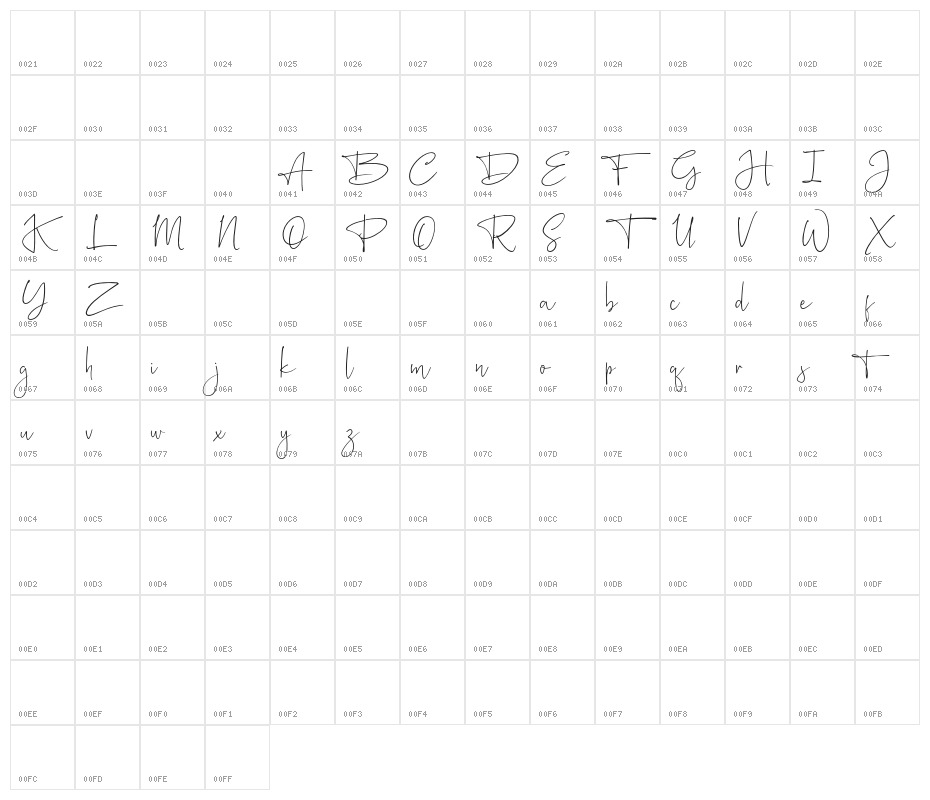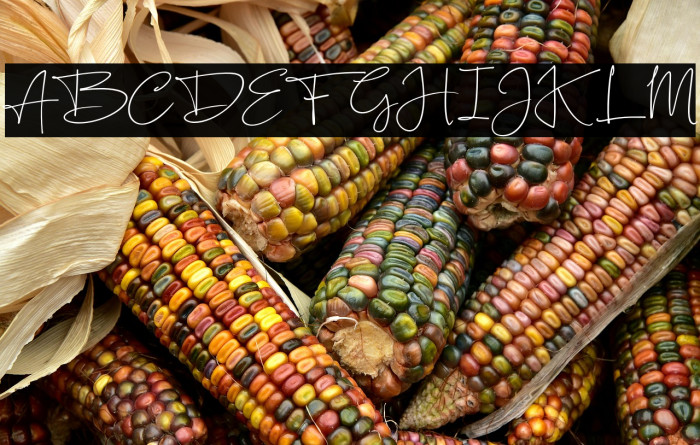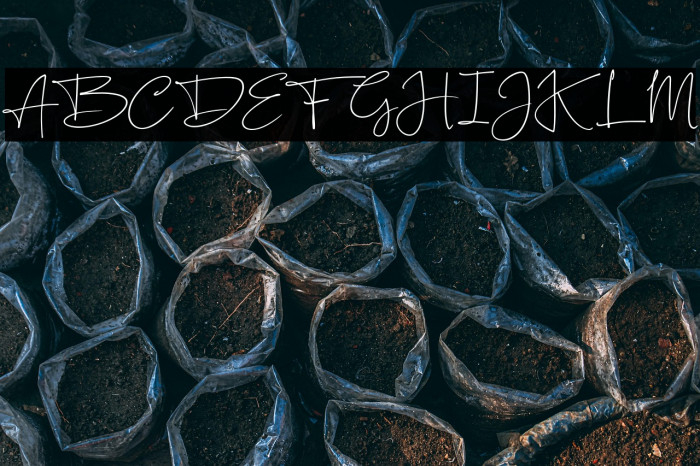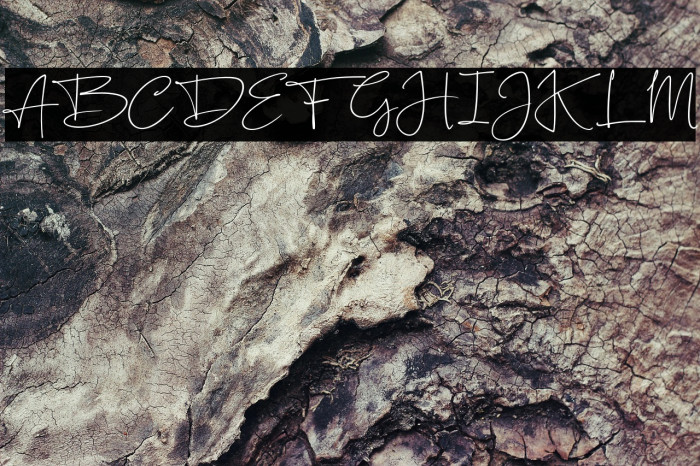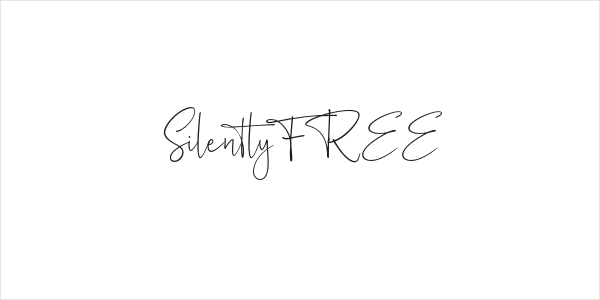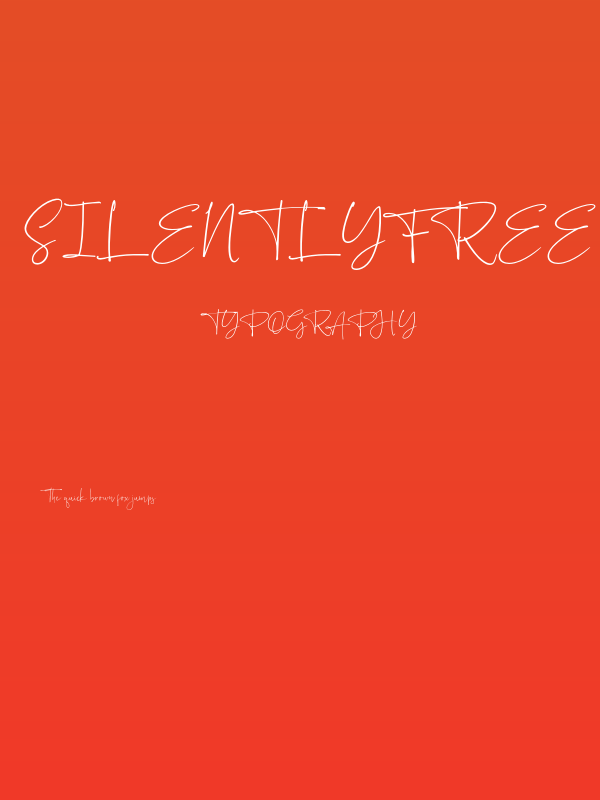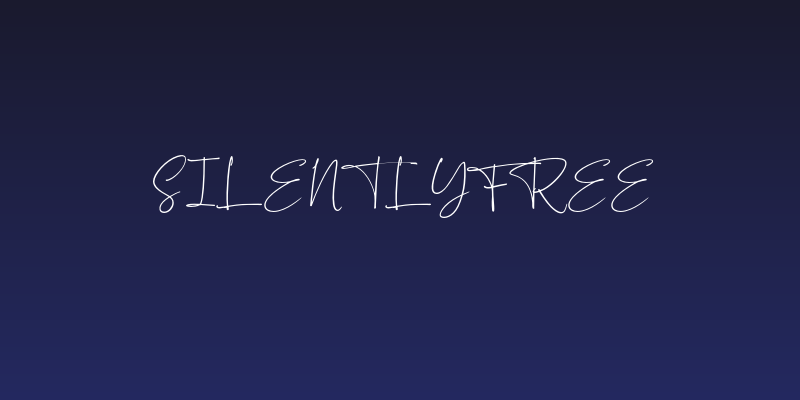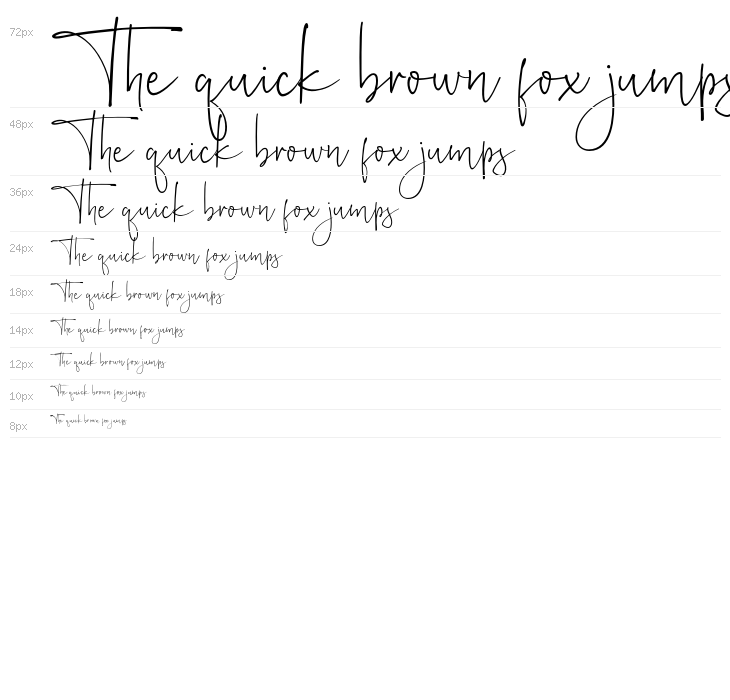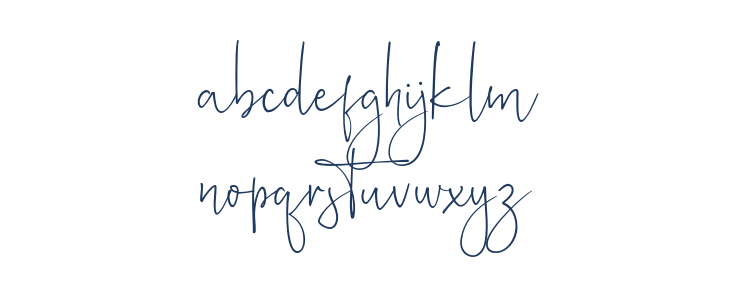
SilentlyFREE Font
SilentlyFREE Description
This font features an elegant, flowing script style with a handwritten appearance. The uppercase letters are tall and slender, with delicate loops and flourishes that add a touch of sophistication. The lowercase letters maintain a consistent style, with smooth, connected strokes that enhance the cursive aesthetic. The overall design is airy and light, giving it a graceful and artistic feel. The characters are well-spaced, ensuring readability while maintaining the script's fluidity. This font is ideal for projects that require a personal, artistic touch, such as invitations, greeting cards, and branding materials.
| Overall Style | Elegant, Artistic |
| Use Case | Headlines, Invitations, Artistic projects |
| Proposed Projects | Ideal for invitations, greeting cards, branding, and artistic projects. |